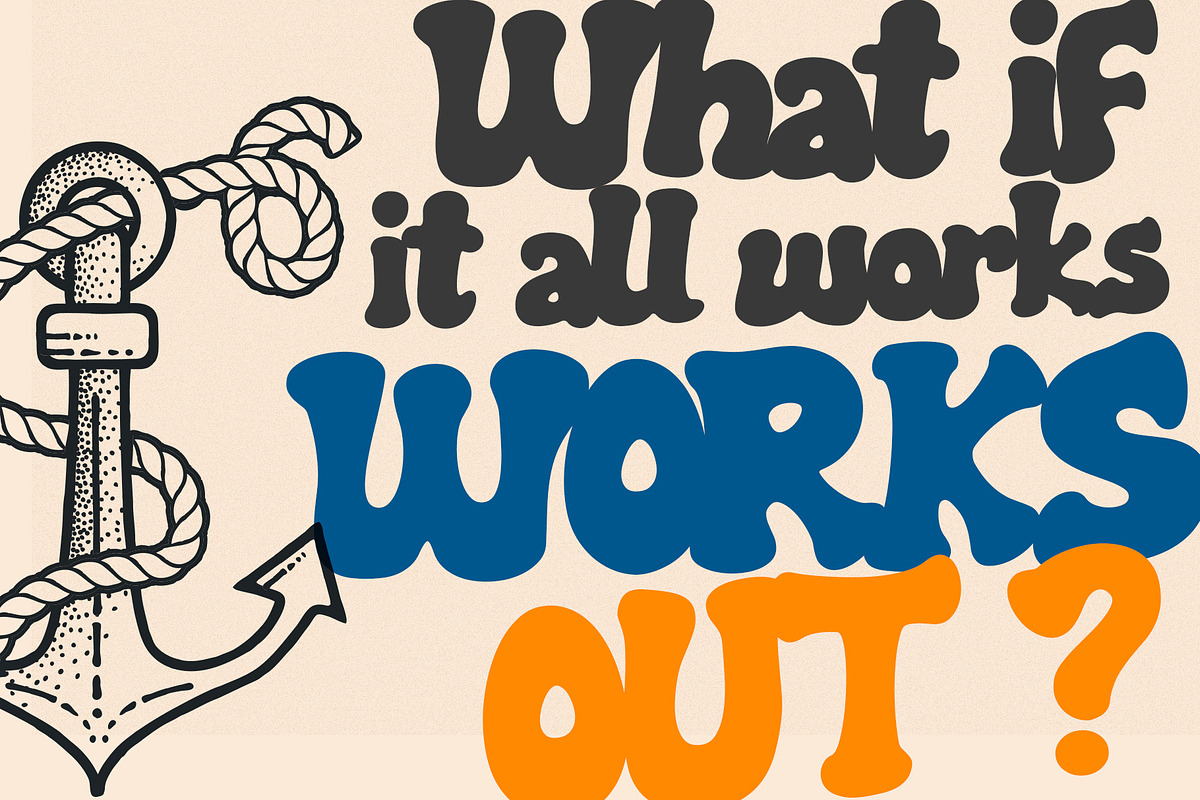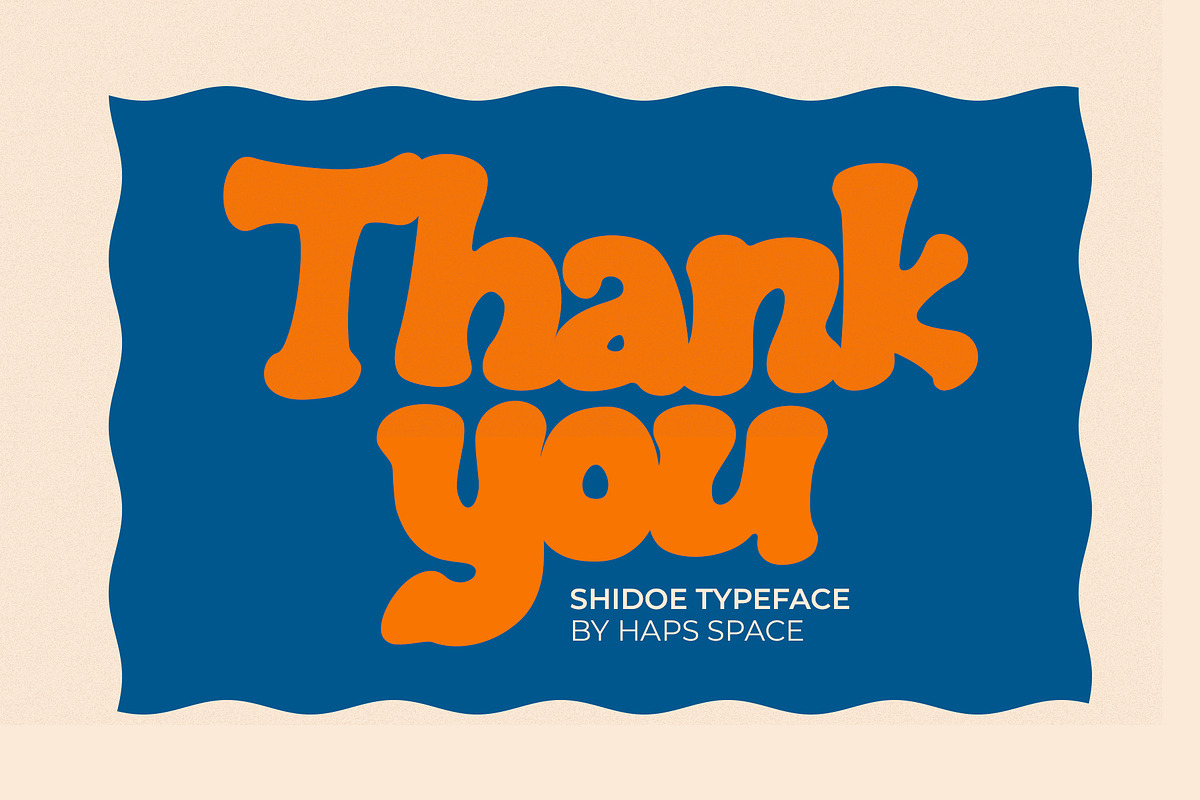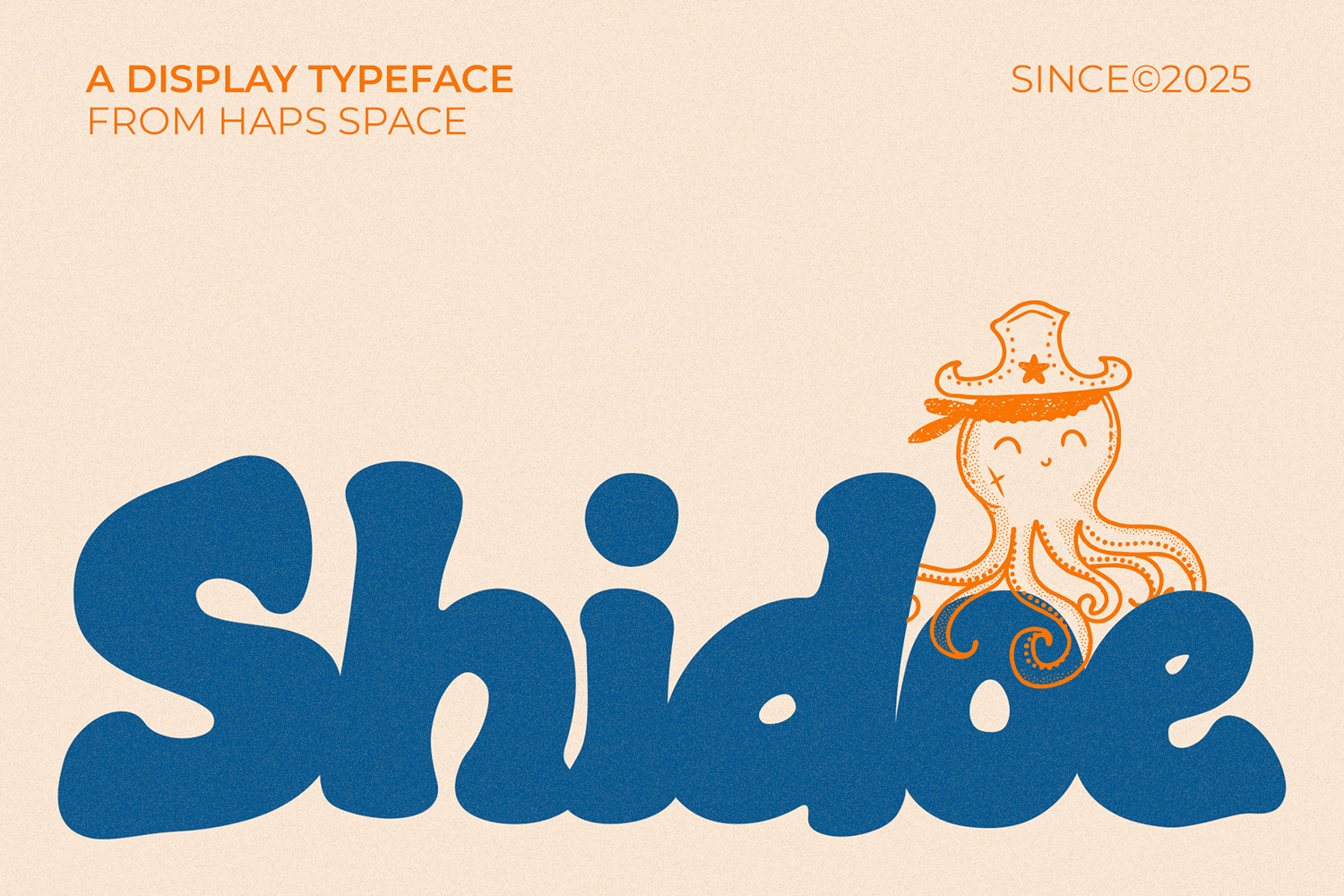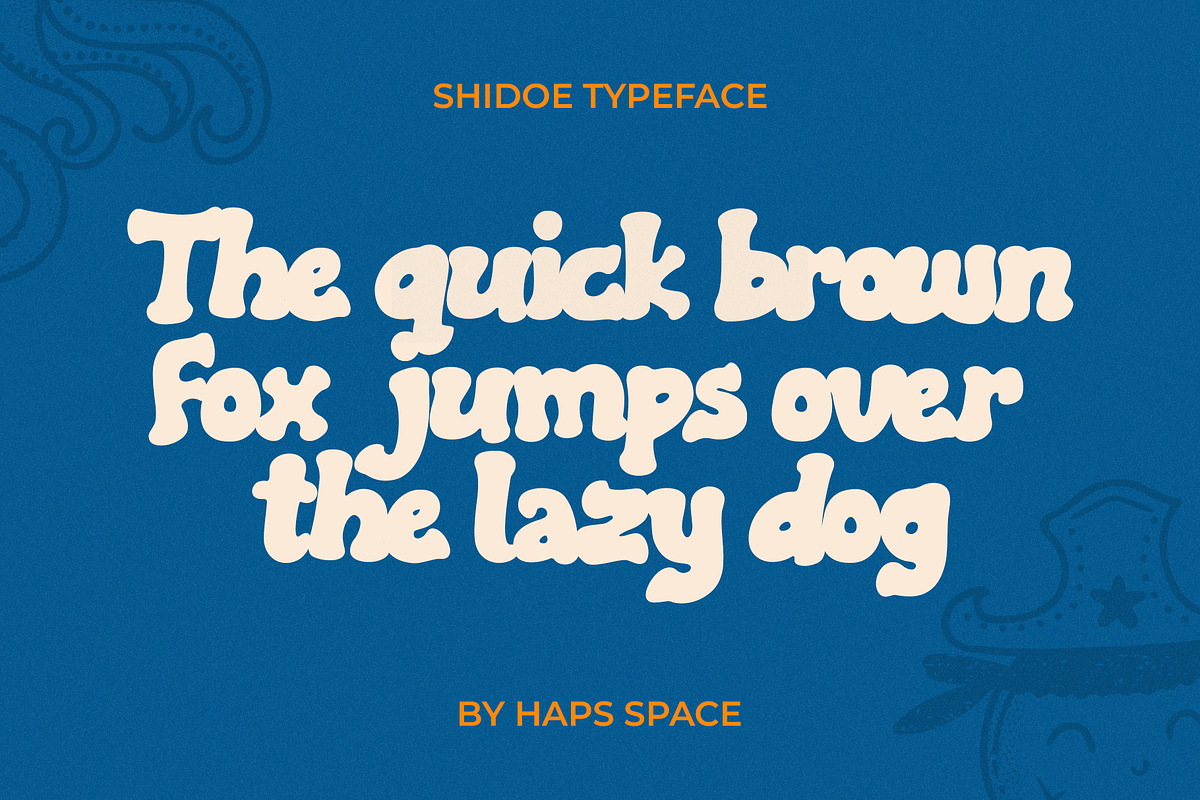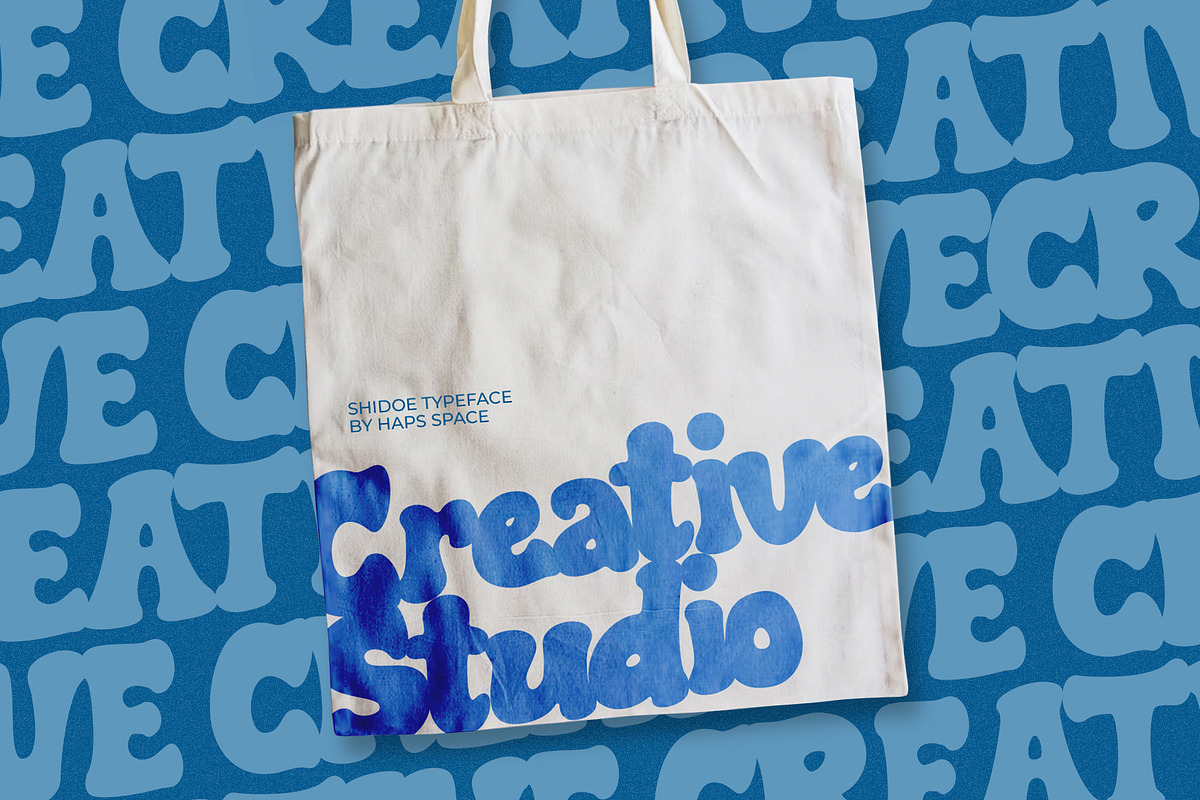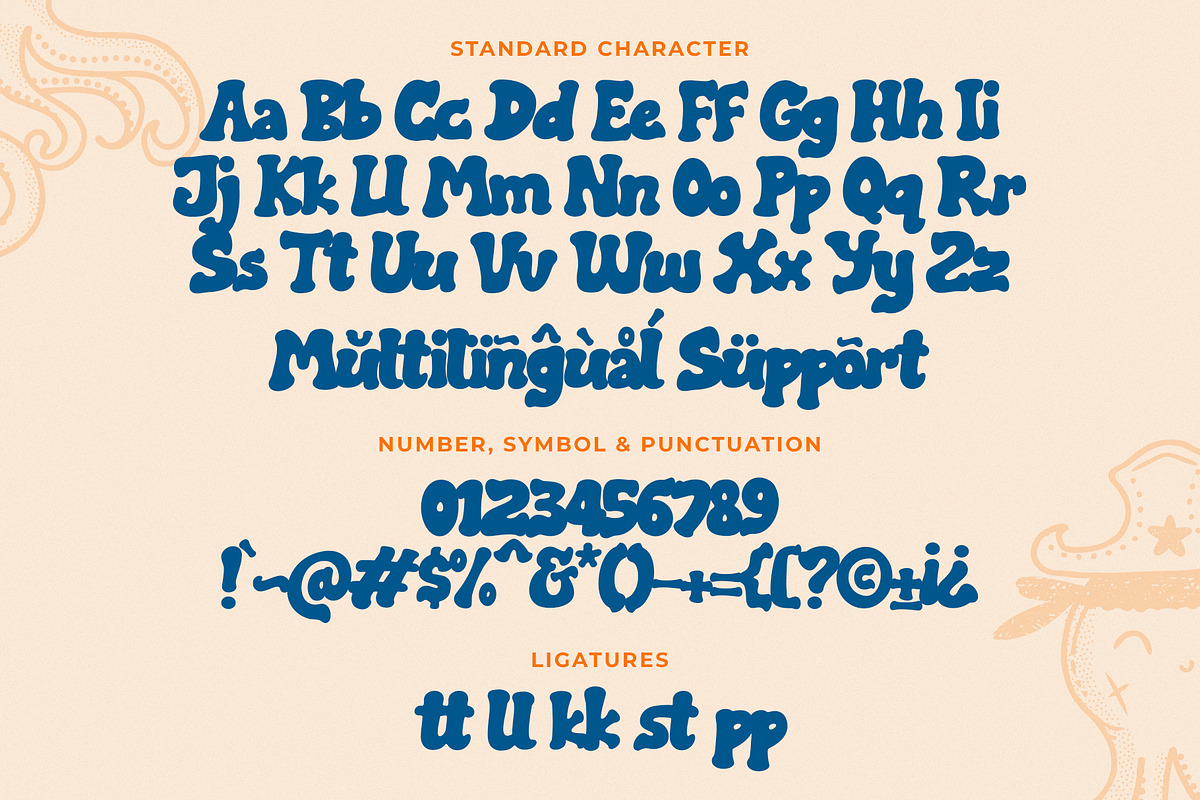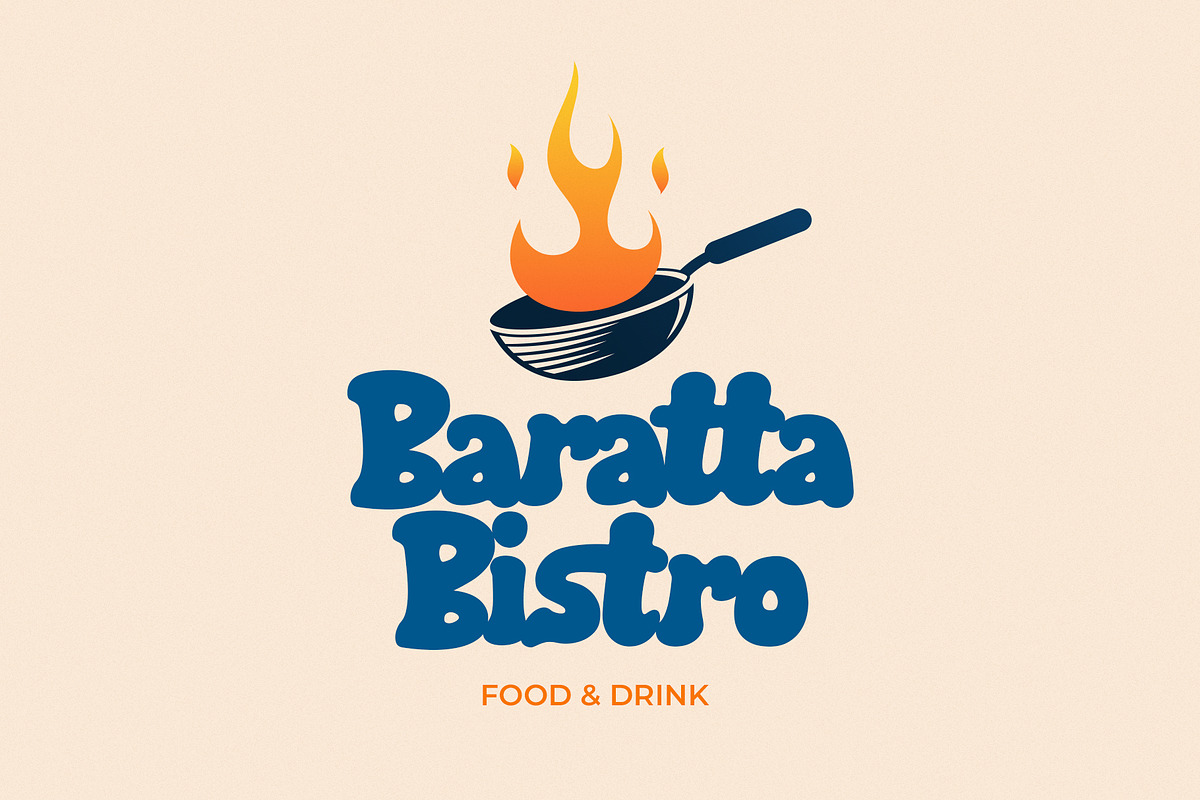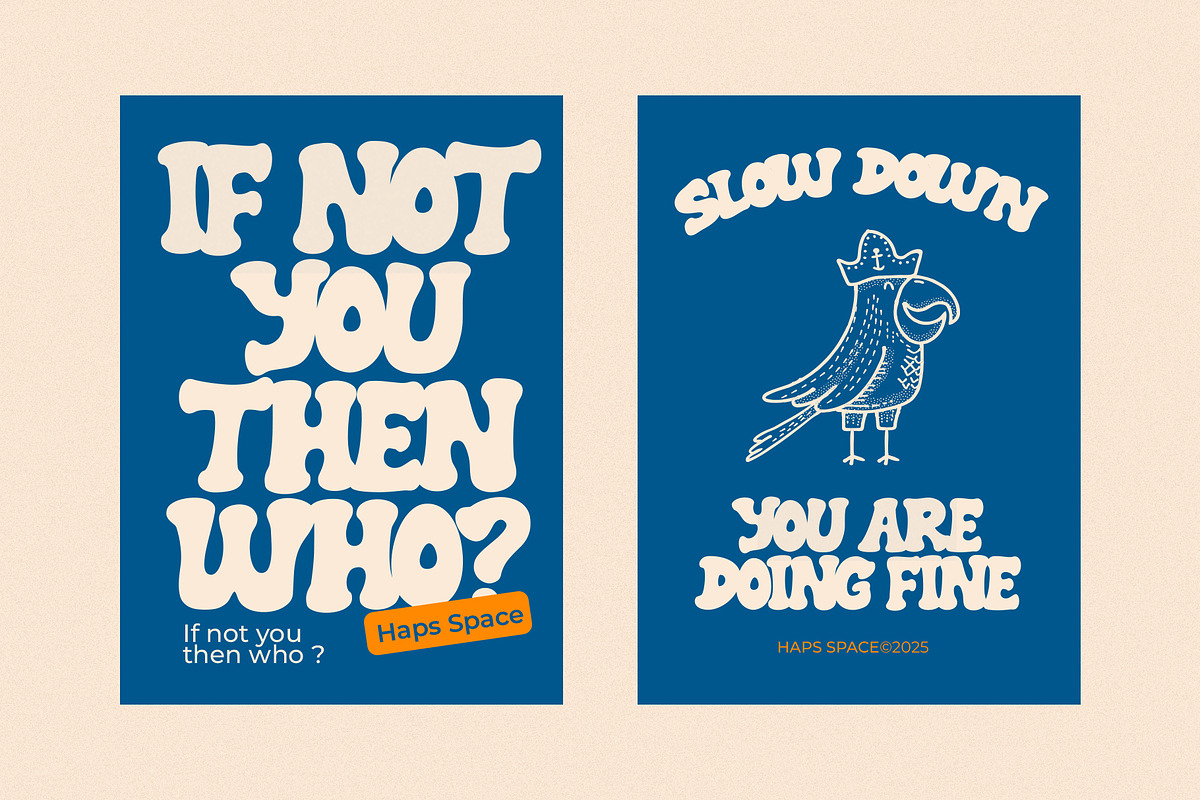
Shidoe – A Display Font
Introducing Shidoe, a bold and playful display typeface that brings character and creativity to your design projects. With its chunky, fluid letterforms and quirky personality, Shidoe is perfect for designers who want to make their work stand out with a fun yet impactful vibe.
Ideal for logos, posters, children’s books, branding, packaging, merchandise, and social media graphics, this typeface adds a fresh and unique touch to any project. Whether you’re designing for a youthful brand or aiming for a retro-modern aesthetic, Shidoe is versatile and eye-catching.
- Unique Letterforms